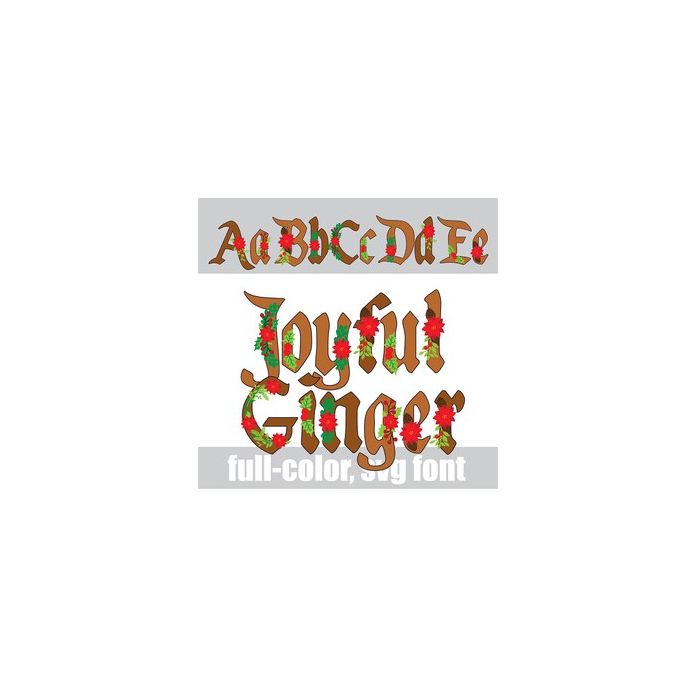
This full-color font features a formal calligraphy font with poinsettias throughout. There is an alt case w/ additional colors you can access through your system or Silhouette's glyph map.